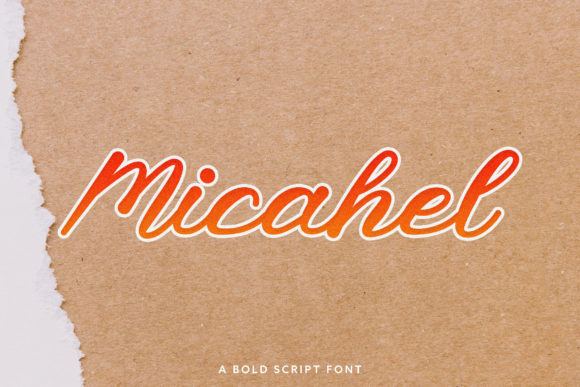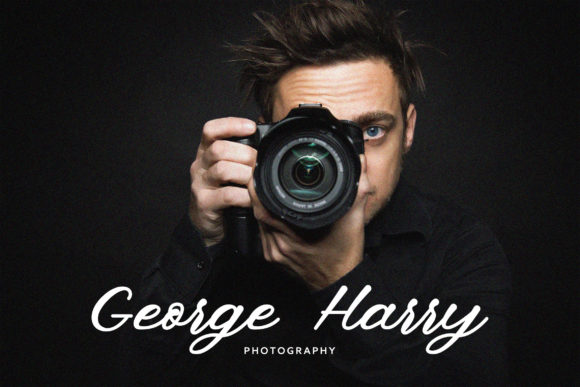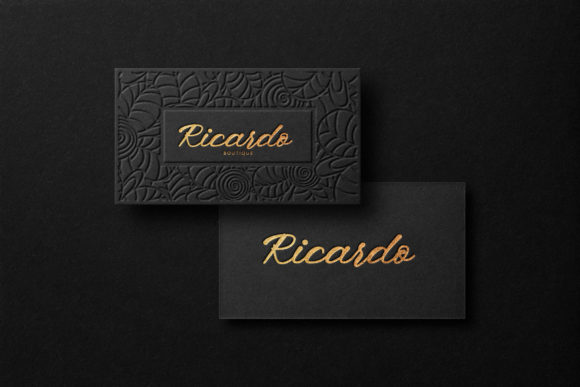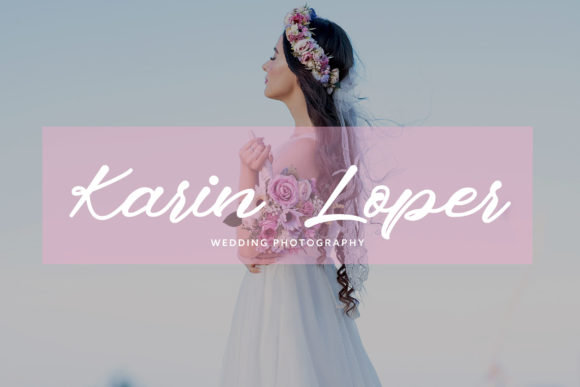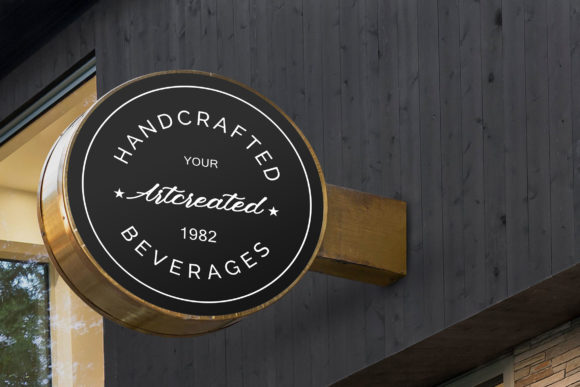
Micahel
About Micahel Font
Micahel is a stunning and authentic handwritten font that features gorgeous swashes and ligatures that make this script incredibly versatile. The Micahel font can turn any creative idea into a true piece of art!